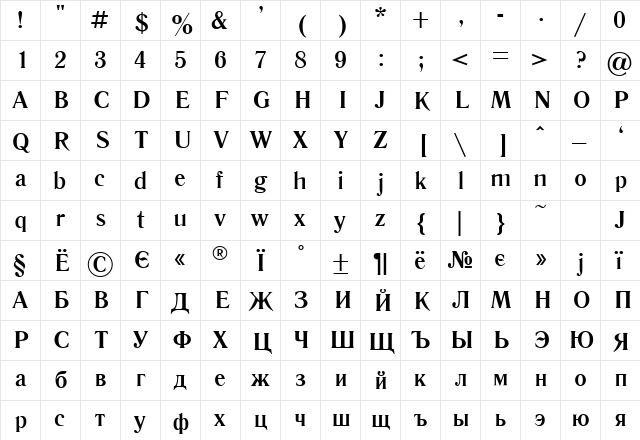
LiteraturnayaC Bold Font Preview
LiteraturnayaC Bold
Design Context for LiteraturnayaC Typeface
LiteraturnayaC offers clean, dependable letterforms without strong stylistic allegiance, making it a practical choice for designers who need flexibility. Its bold stroke weight gives it real presence on the page.